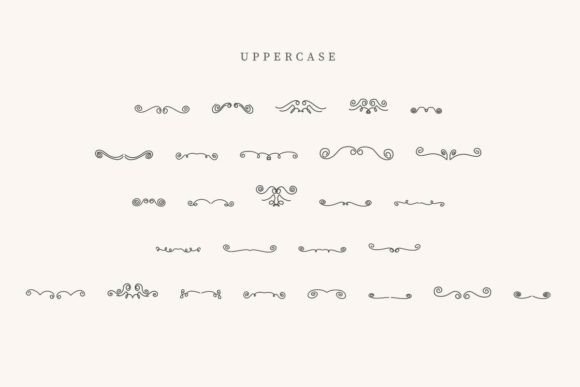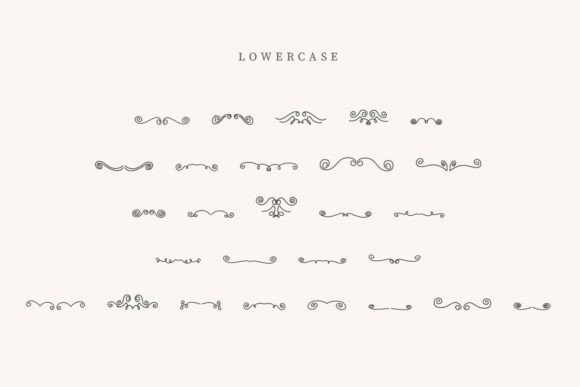
Introducing Fancy Divider: Elevate Your Designs with Vintage Elegance
In the world of typography, few fonts manage to capture the essence of vintage elegance while still offering a modern twist. Fancy Divider, a stunning dingbat font, achieves just that. This beautiful blend of traditional ornamentation and contemporary typography is perfect for designers and crafters looking to add a touch of sophistication to their work.
The Artistic Appeal of Fancy Divider
Fancy Divider is more than just a font; it’s an artistic statement. Its intricate designs and classic motifs evoke a sense of nostalgia, reminiscent of bygone eras when details were meticulously crafted, and beauty was found in the finer things. The font’s seductive blend of old-world charm and modern flair makes it an ideal choice for a wide range of design projects, from elegant decorations and event invitations to unique craft ideas.
One of the standout features of Fancy Divider is its versatility. This font is not limited to a specific style or medium. Whether you’re working on digital projects, such as website headers, social media graphics, and digital invitations, or traditional crafts like scrapbooking, card making, and DIY decorations, Fancy Divider can add that extra special touch that sets your work apart.
For designers, Fancy Divider offers a unique element to incorporate into client projects. It can be used to create visually appealing dividers, add elegance to headings, or even design intricate text-based graphics. Crafters, on the other hand, will find Fancy Divider to be a valuable addition to their toolkit, enabling them to personalize their crafts with a level of detail and sophistication that is hard to achieve with standard fonts.
Bringing Nostalgic Charm to Modern Designs
In an era where modern and minimalist designs often dominate, Fancy Divider provides a refreshing alternative. Its ability to bring a hint of nostalgic charm to any design endeavor makes it a sought-after font for those looking to create something distinctive. Whether you’re aiming for a vintage look or simply want to add some character to your designs, Fancy Divider is up to the task.
Tips for Using Fancy Divider
To make the most of Fancy Divider, consider the following tips:
- Mix and Match: Combine Fancy Divider with simpler fonts to create visual interest and hierarchy in your designs.
- Play with Sizes: Experiment with different sizes to emphasize certain elements and create a dynamic layout.
- Color Matters: Choose colors that complement the vintage feel of Fancy Divider, such as rich jewel tones, soft pastels, or classic black and white.
- Experiment with Crafts: Don’t limit Fancy Divider to digital designs. Its dingbat nature makes it perfect for handcrafted projects like hand-lettering, stencils, and more.
Fancy Divider is not just a font; it’s a design element that can transform your projects with its vintage elegance and artistic appeal. Its versatility, combined with its timeless beauty, makes it an essential tool for designers and crafters alike. Whether you’re looking to add a touch of sophistication to digital designs or seeking to embellish your crafts with a unique flair, Fancy Divider is the perfect choice. Let your creativity run wild with Fancy Divider and discover the difference it can make in your design endeavors.